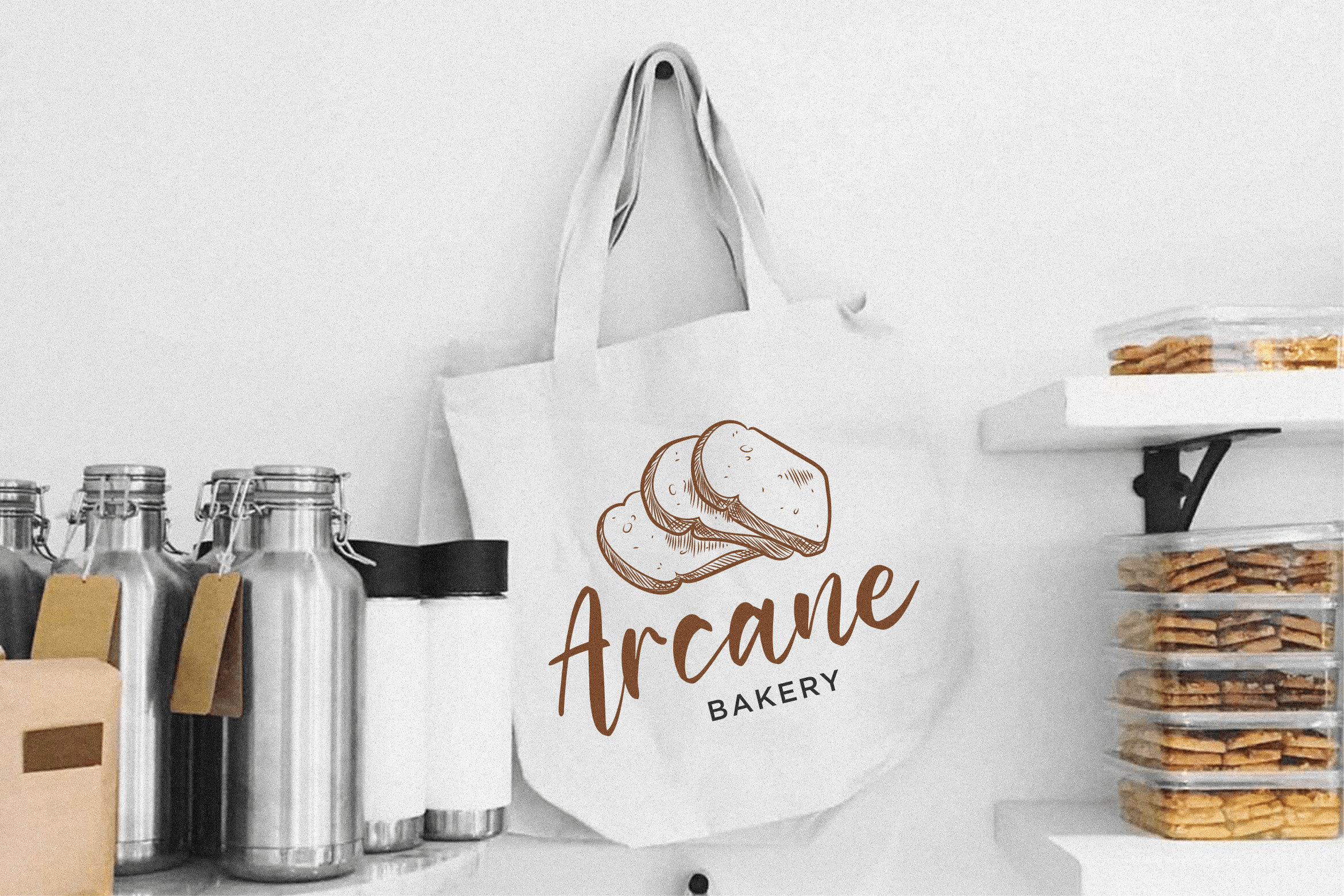
Smilemint Font
Smilemint Script Font
This is a cute handwritten font that is perfectly suitable for product packaging, branding project, magazines, social media posts, wedding invitations, and many more. Try it and you’ll see your creativity reach new levels!